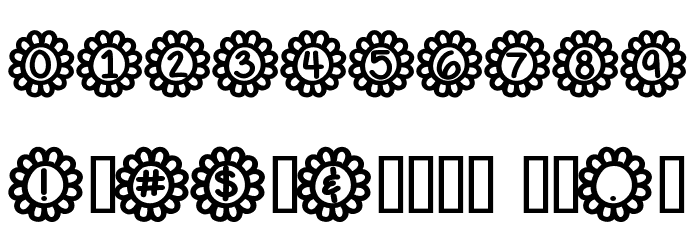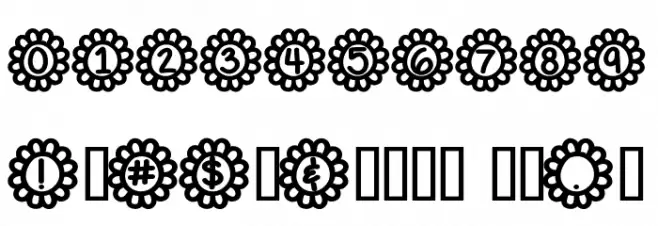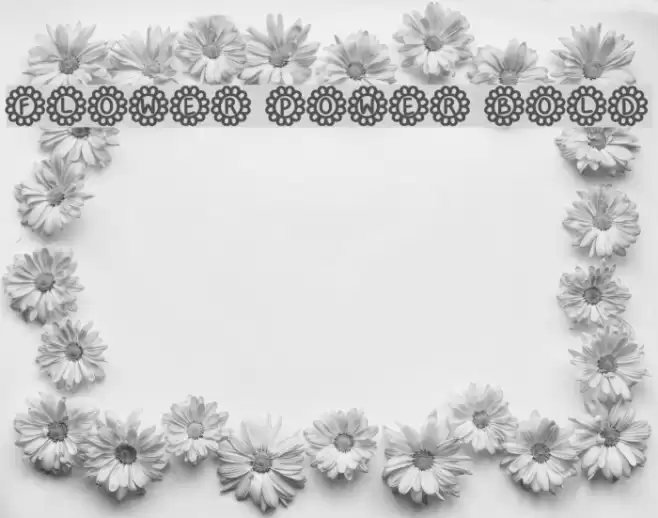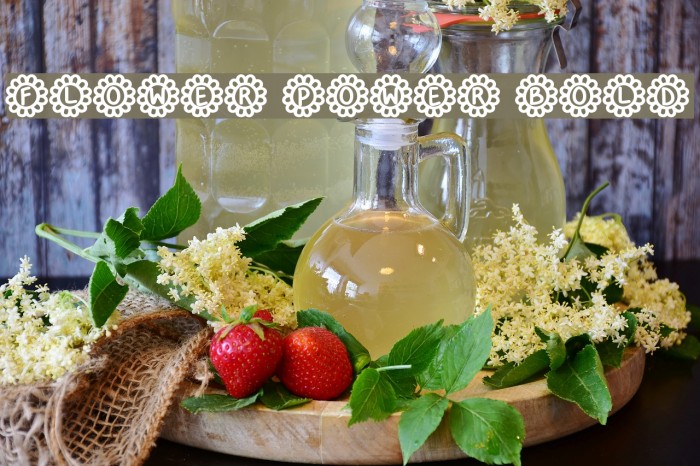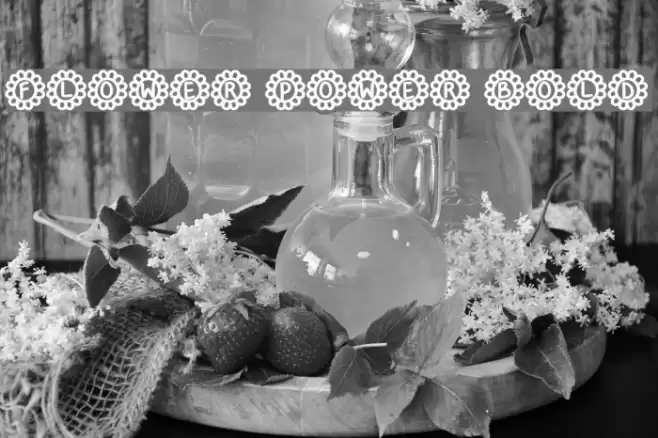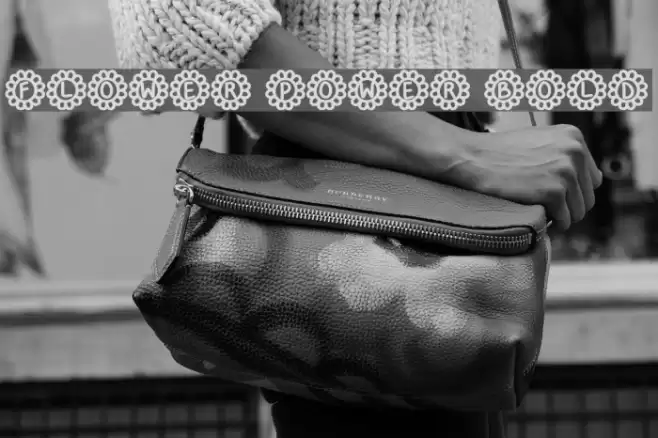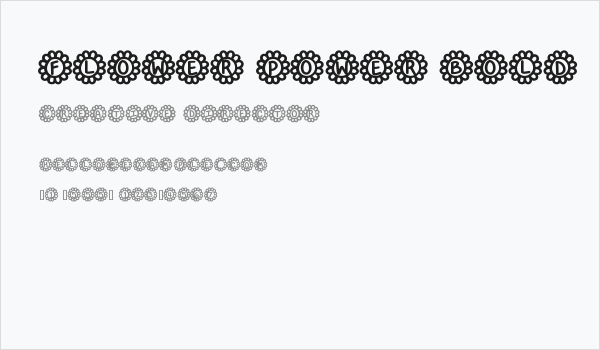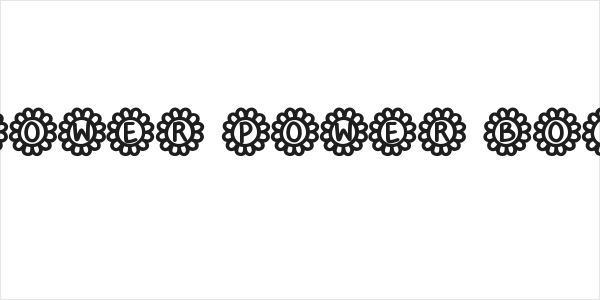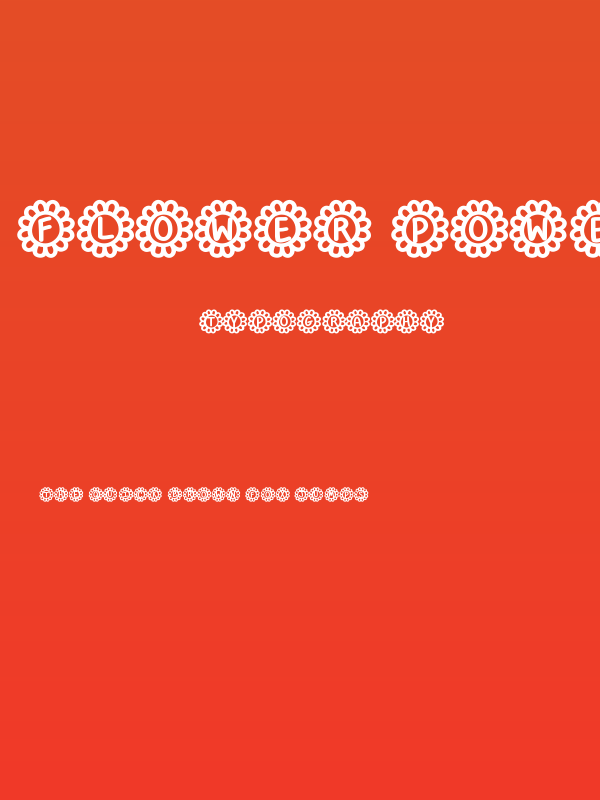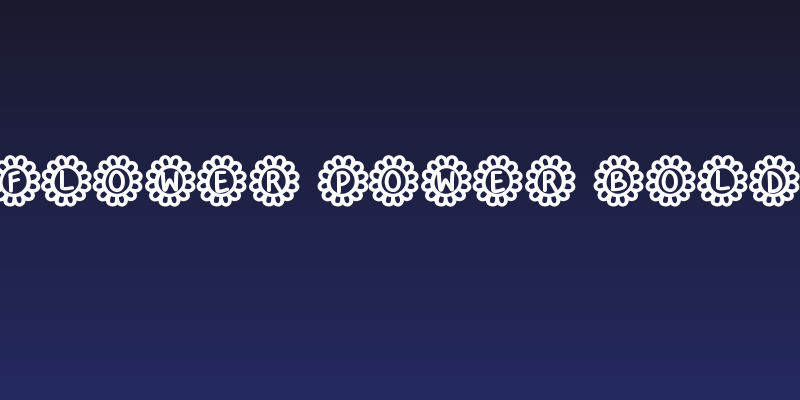
Flower Power Bold Font
Flower Power Bold Description
This playful and decorative font features characters encased within flower-like shapes, creating a whimsical and vibrant appearance. Each letter and number is centered within a bold, petal-like border, making it ideal for designs that require a fun and lively touch. The font maintains a consistent style across uppercase, lowercase, and numerical characters, with special symbols also following the same floral theme. Its unique design makes it stand out, perfect for projects that aim to capture attention and convey a sense of joy and creativity.
| Proposed Projects | Ideal for children's books, greeting cards, party invitations, and playful branding projects. |